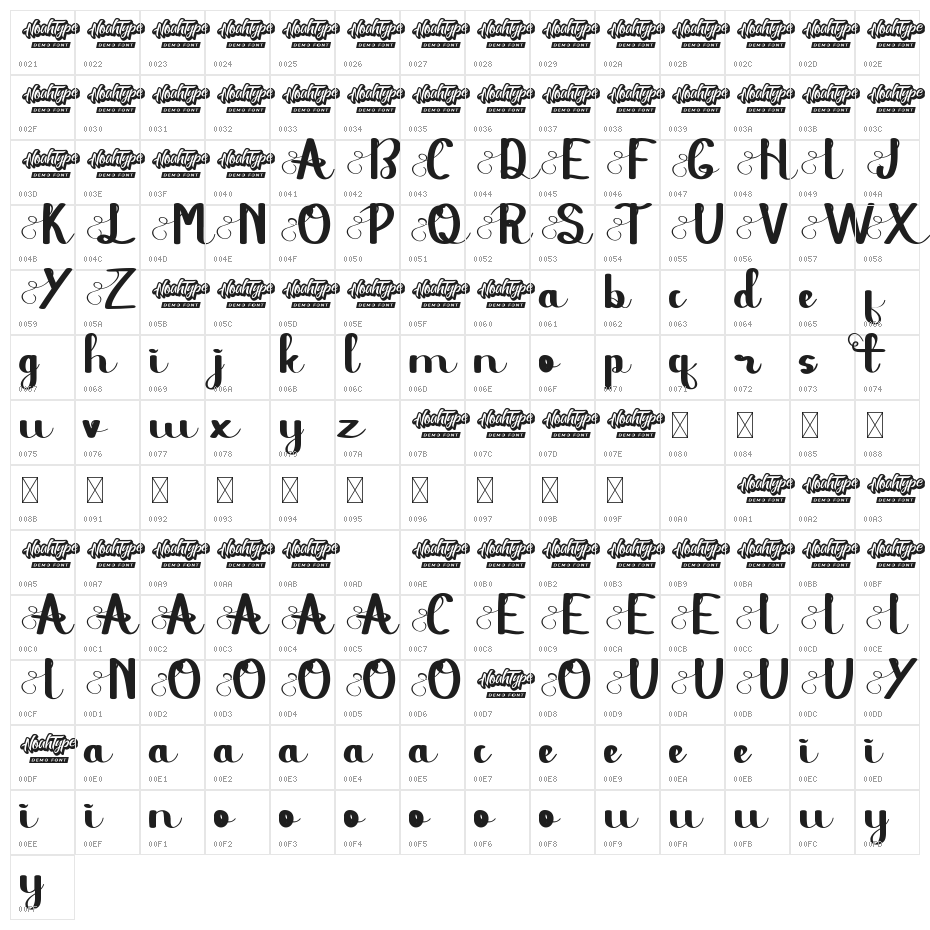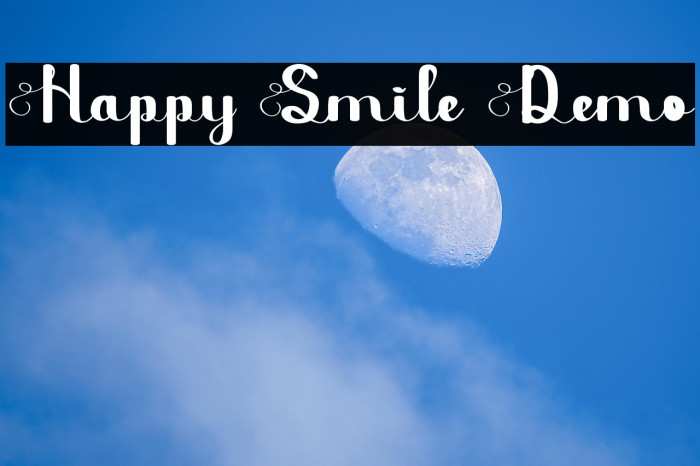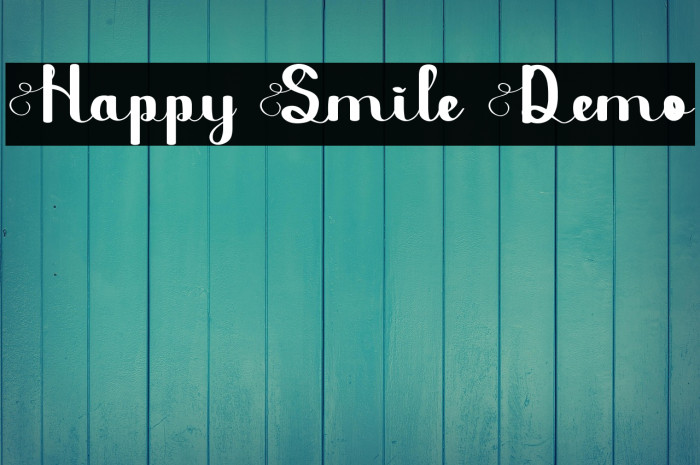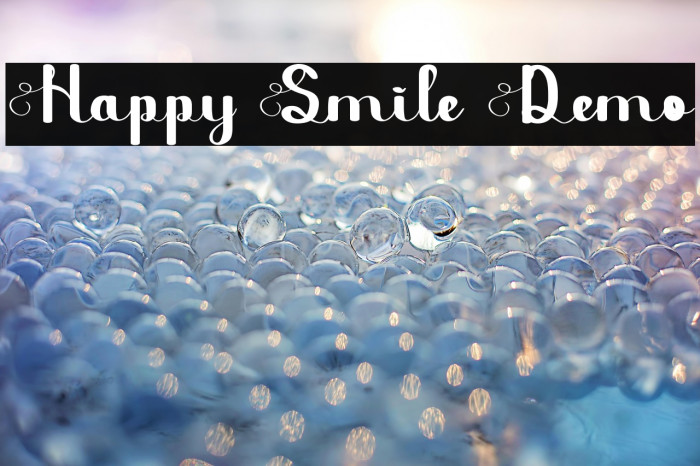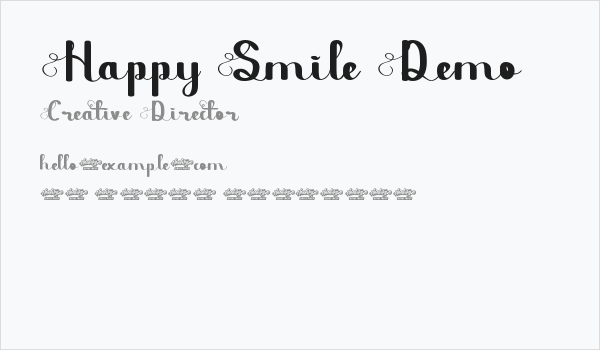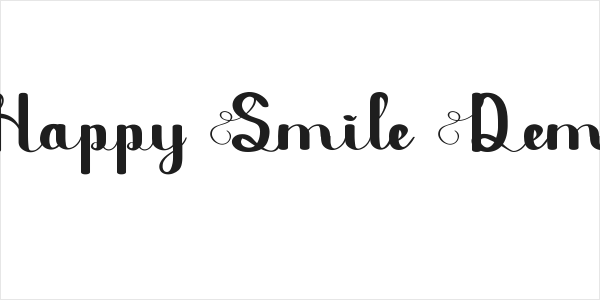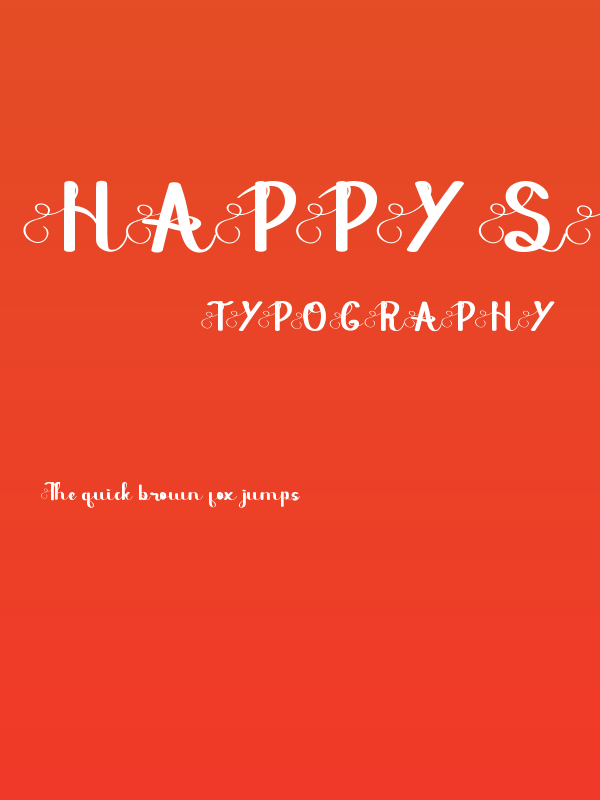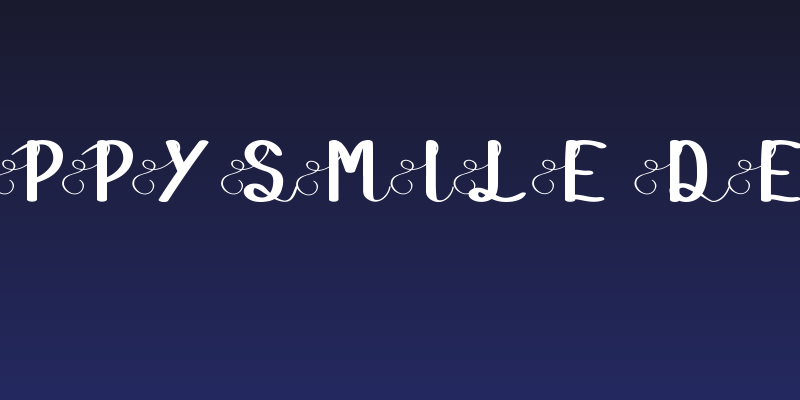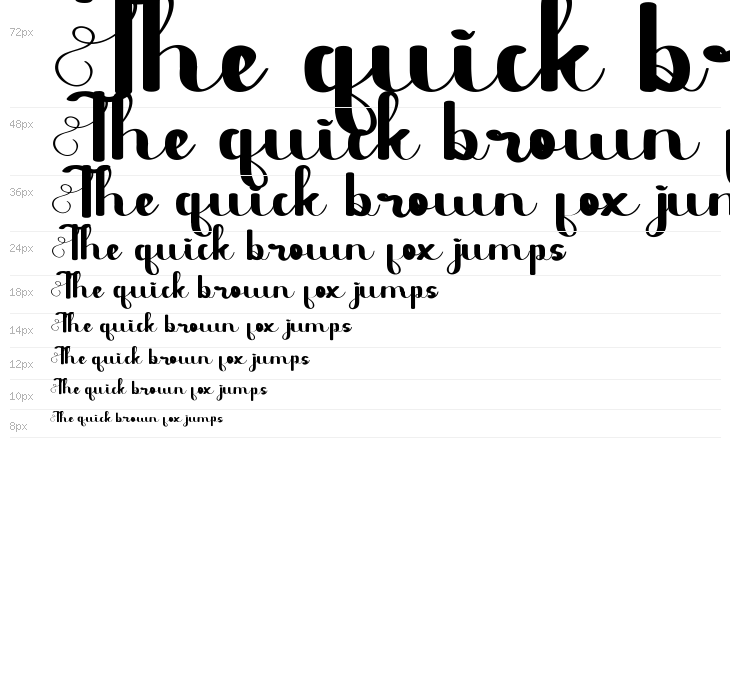
Happy Smile Demo Font
Happy Smile Demo Description
This font features an elegant and decorative style with intricate swirls and flourishes that extend from the characters, giving it a whimsical and artistic appearance. The uppercase letters are adorned with elaborate embellishments, while the lowercase letters maintain a more fluid and cursive form. The overall design is bold, with thick strokes that enhance its visual impact. The font's unique character is further emphasized by its high contrast between thick and thin lines, making it stand out in any design. It is well-suited for creative and expressive projects where a touch of elegance and flair is desired.
| Proposed Projects | Ideal for wedding invitations, greeting cards, branding, and artistic posters. |